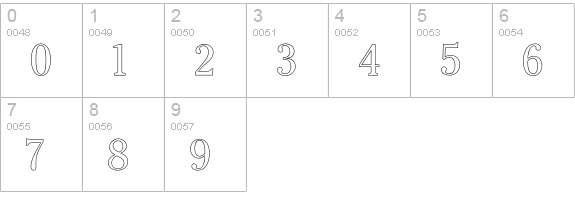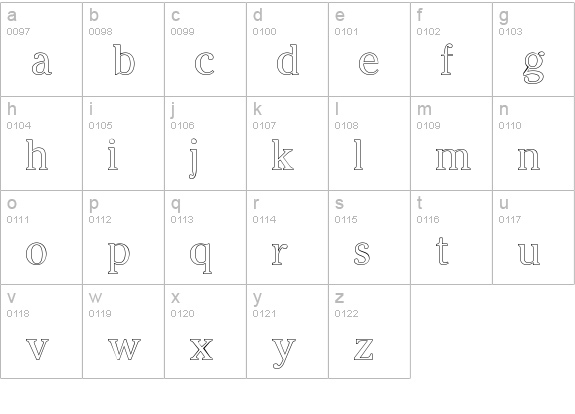
CheltenhamOutline Font Details
CheltenhamOutline is a versatile and elegant font that exudes a classic charm with a modern twist. Its clean lines and distinct outline make it perfect for a variety of design projects, from invitations to branding and more. The font's timeless appeal is sure to make your text stand out and leave a lasting impression on your audience. What's even better is that CheltenhamOutline is available for free download at FontsMarket.com. This means you can easily access this stunning font and incorporate it into your designs without any cost. Don't miss the opportunity to add a touch of sophistication to your projects with CheltenhamOutline – download it today and elevate your design game!